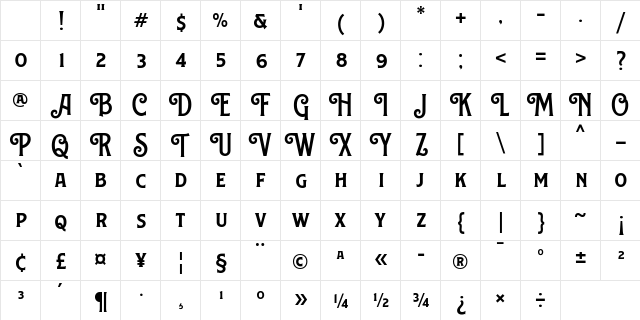
Complete Caniste (Demo) Semibold glyph index. Displaying only characters natively supported by Caniste (Demo) Semibold font.
Caniste (Demo) is a composed and adaptable typeface that performs quietly and consistently across a wide range of design contexts. Its bold stroke weight gives it real presence on the page.